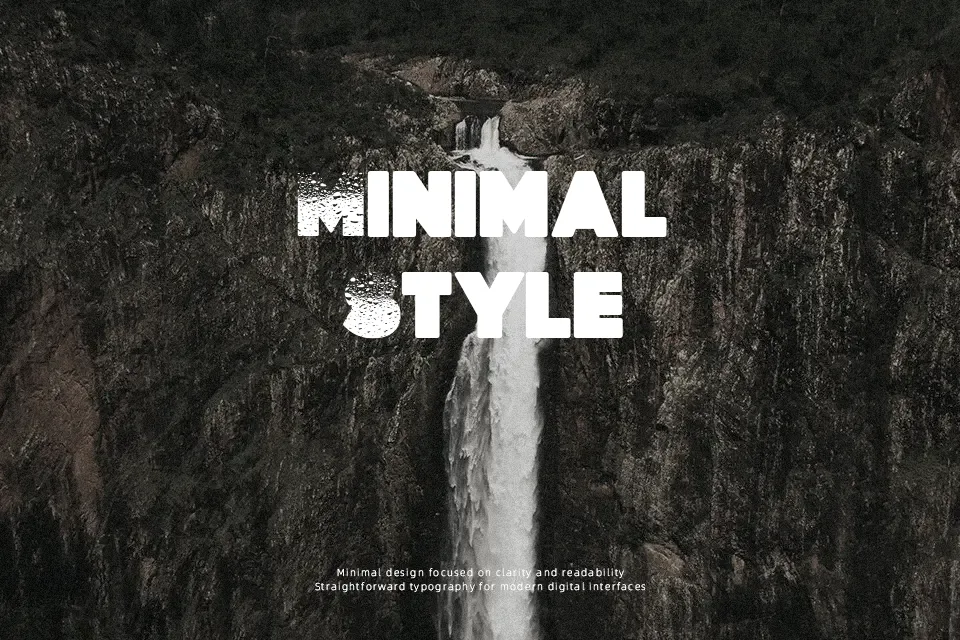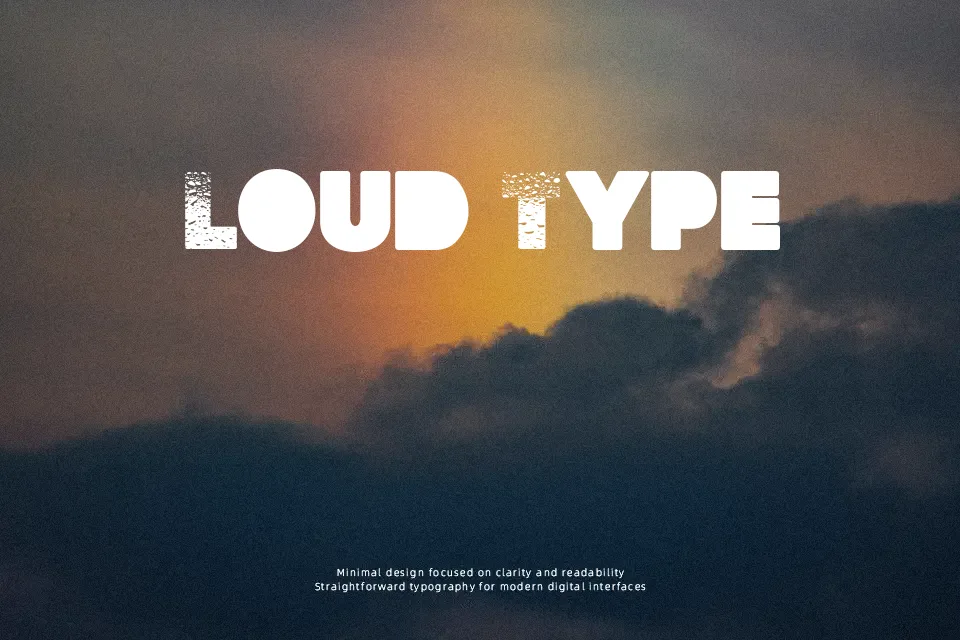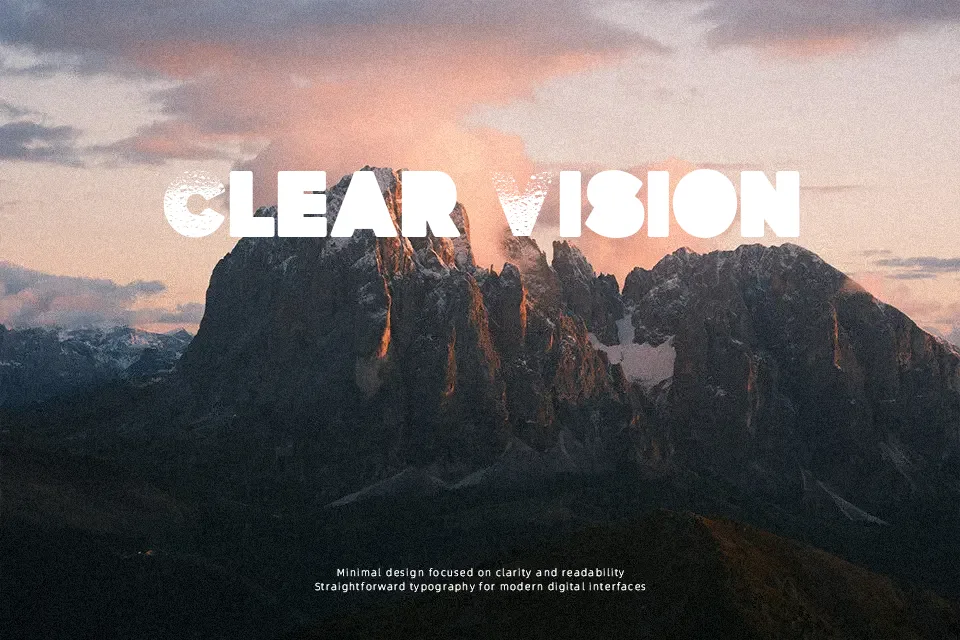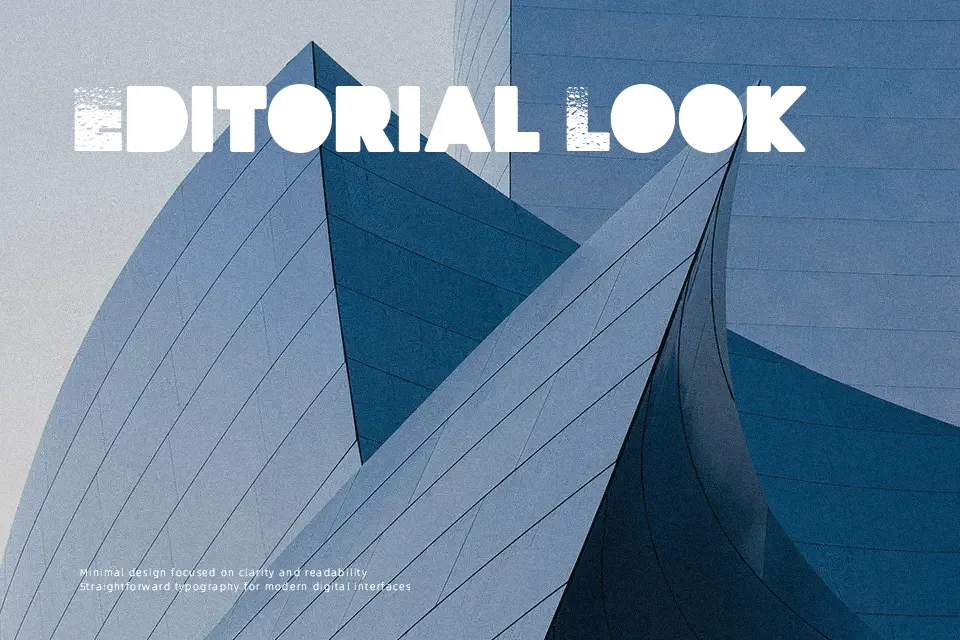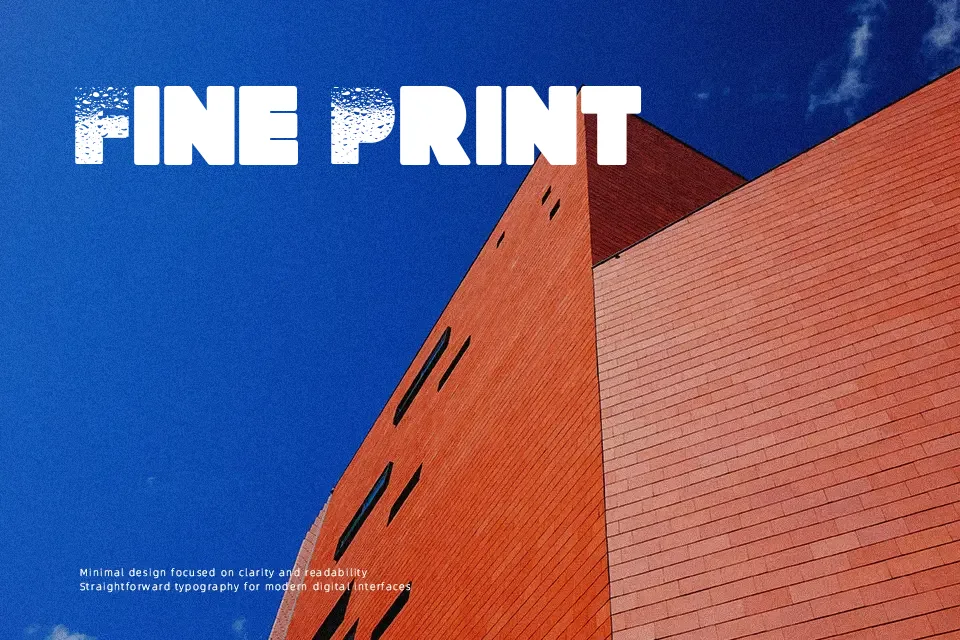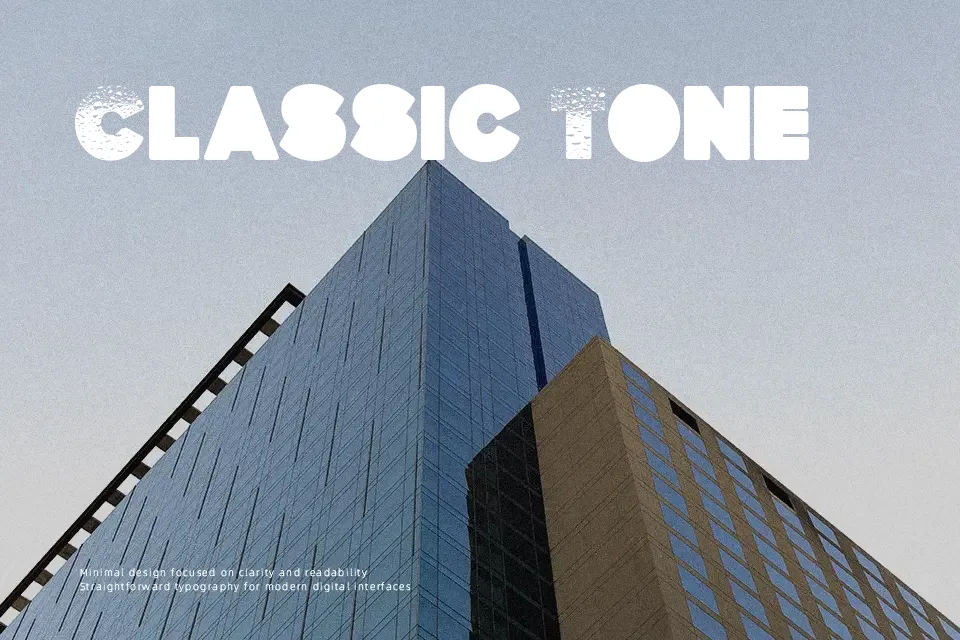
Rained Font
A bold headline or dramatic poster design instantly benefits from the liquid-textured aesthetic of Rained Font. The letterforms feature heavy distressed strokes with unique dripping details that mimic the effects of water or melting elements. Its thick structure provides excellent weight for large display applications, ensuring strong visual rhythm across creative layouts. While the bold design commands attention, the complex decorative edges reduce clarity when scaled down for extended reading. The spacing remains relatively tight to accommodate the textured borders, making this typeface perform best at substantial sizes where its fluid characteristics can be fully appreciated without compromising legibility.
dramatic poster headlines
energy drink packaging
horror movie titles
music festival graphics
Perfect for film, headline, and packaging, with a bold and decorative style.